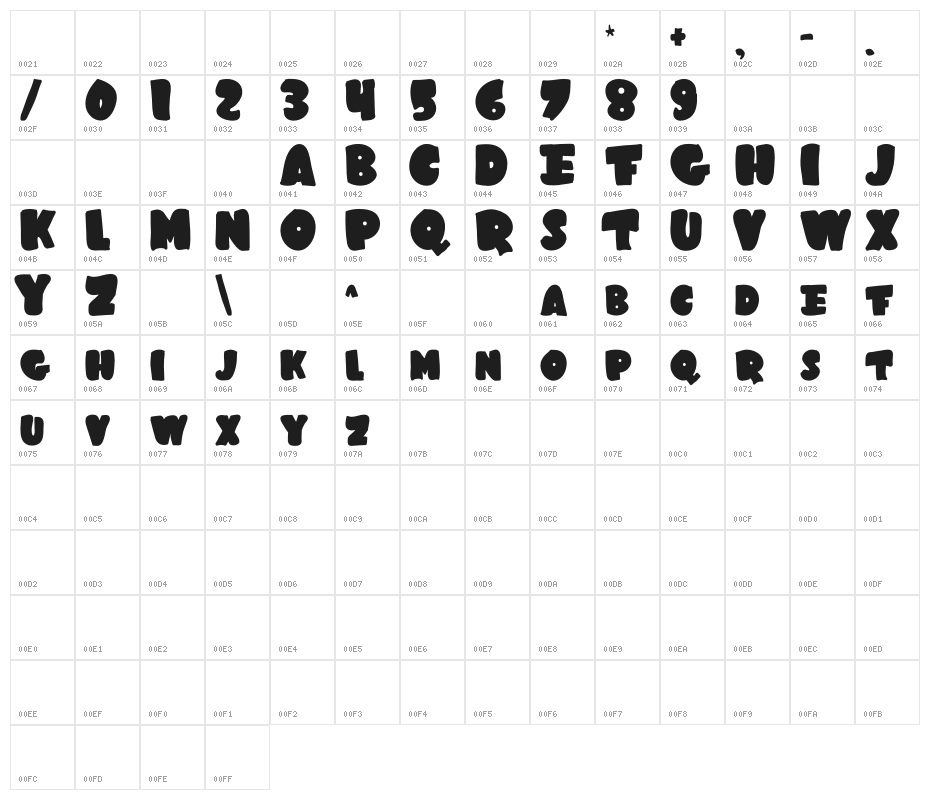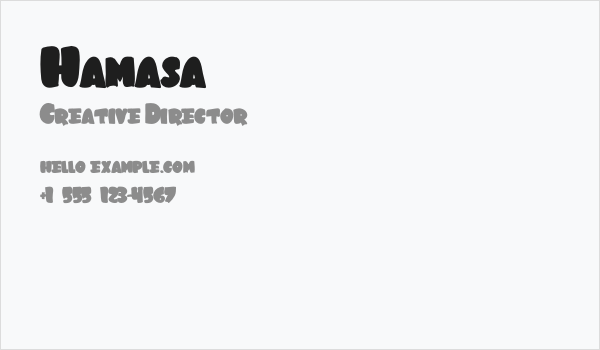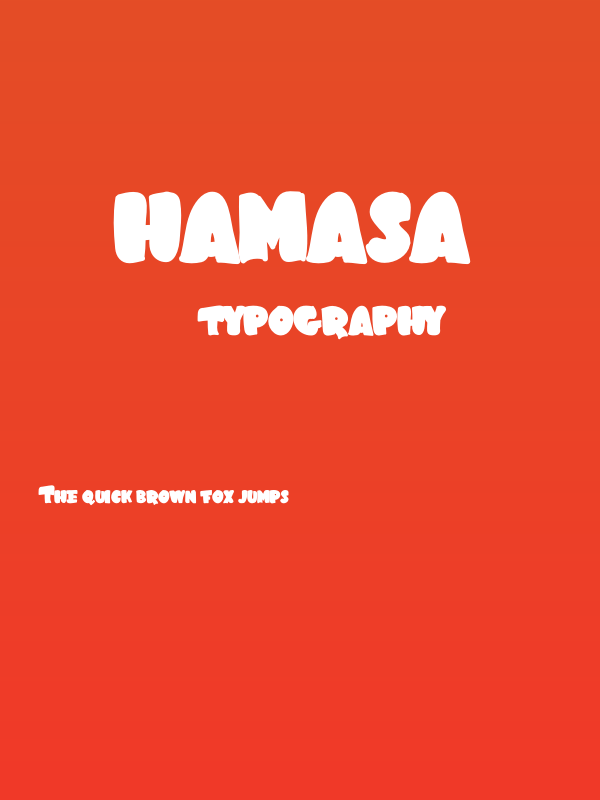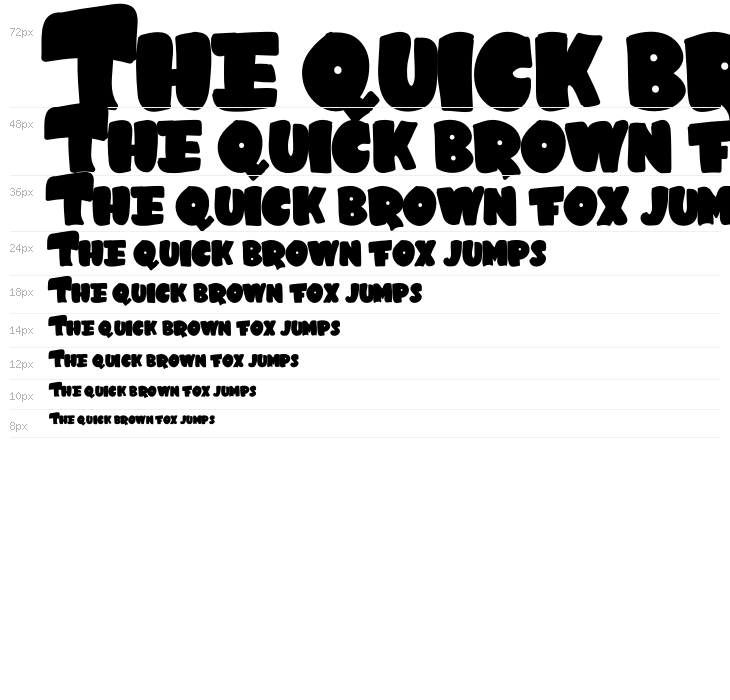
Hamasa Font
Hamasa Description
This font features bold, playful characters with a bubbly and rounded appearance. The letters are thick and have a cartoonish style, making them stand out with a strong visual impact. The characters are closely spaced, enhancing the boldness and creating a compact look. The font's unique style is characterized by its exaggerated curves and whimsical design, making it ideal for projects that require a fun and lively touch. The numbers and special characters follow the same playful design, ensuring consistency across all elements.
| Overall Style | Playful, Cartoonish |
| Proposed Projects | Ideal for children's books, comic strips, playful branding, and party invitations. |